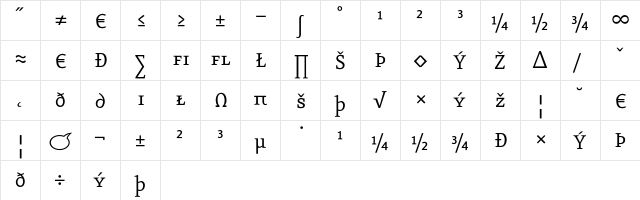
Eureka SmallCaps Exp Font Preview
Eureka SmallCaps Exp
Design Context for Eureka Typeface
Eureka takes a measured approach to typography — its balanced proportions and neutral character make it a reliable workhorse for both digital and print work.